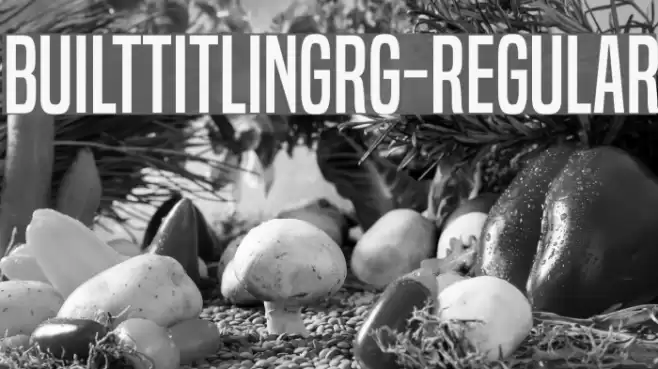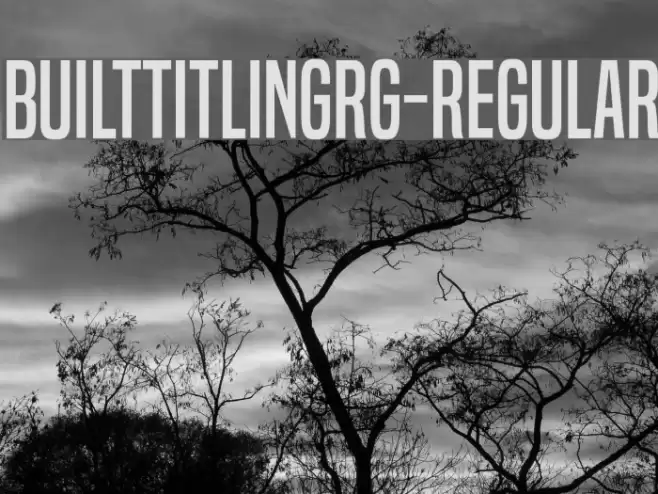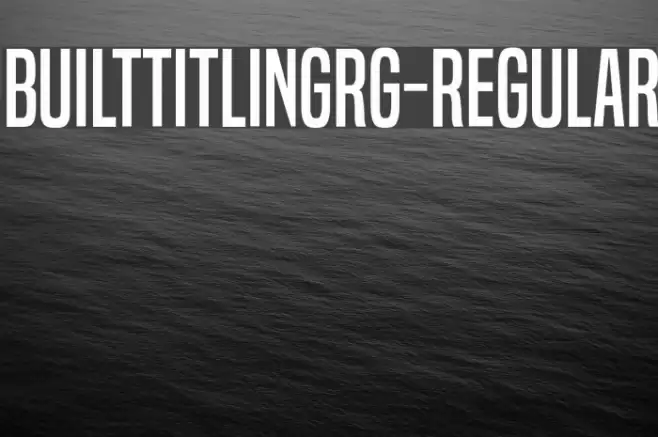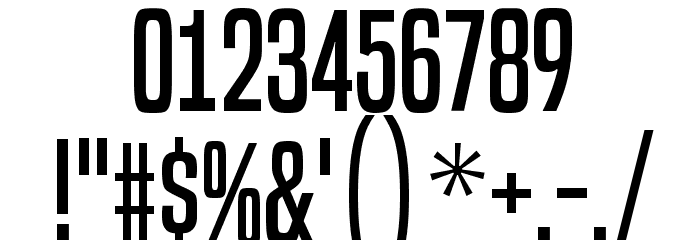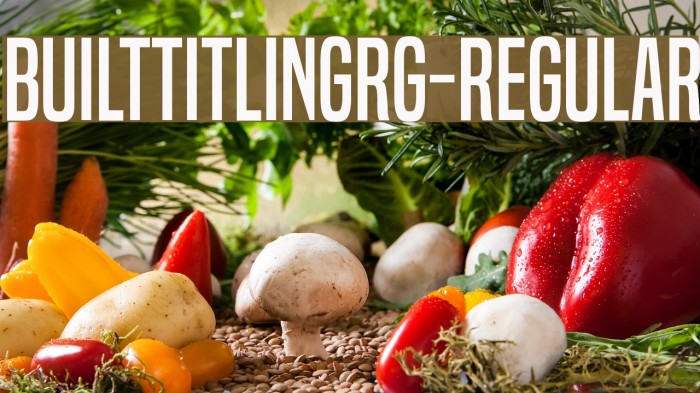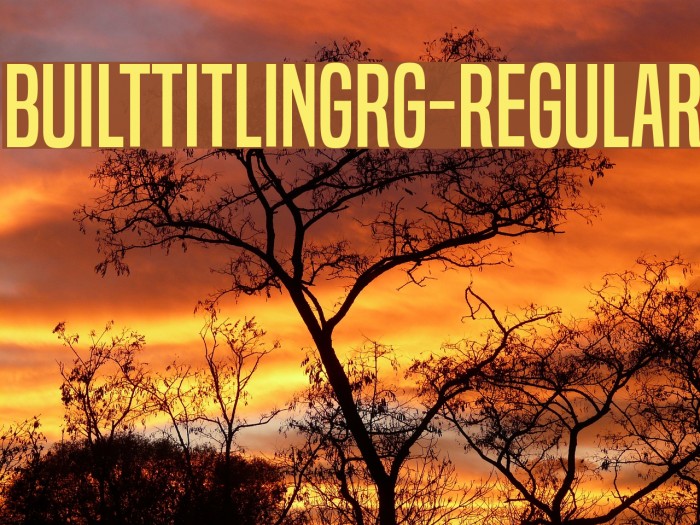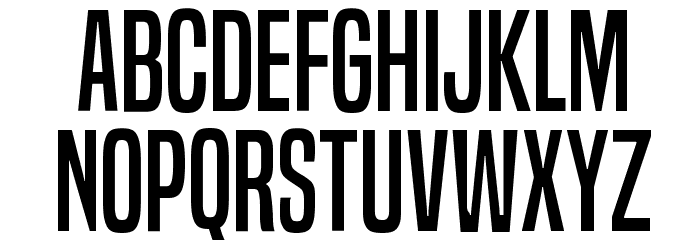
BuiltTitlingRg-Regular Font
BuiltTitlingRg-Regular Description
This font features a bold and impactful design with tall, narrow characters that convey a sense of modernity and strength. The uppercase letters are uniform in height, creating a cohesive and structured appearance. The numbers and special characters maintain the same boldness, ensuring consistency across all elements. The font's clean lines and lack of serifs contribute to its contemporary style, making it suitable for a variety of design applications. Its strong presence and readability make it ideal for headlines and titles where attention is key.
A bold, modern sans-serif font with tall, narrow characters from Uncategorized fonts.
- Proposed Projects: Ideal for branding, advertising, posters, and headlines where a strong visual impact is needed.